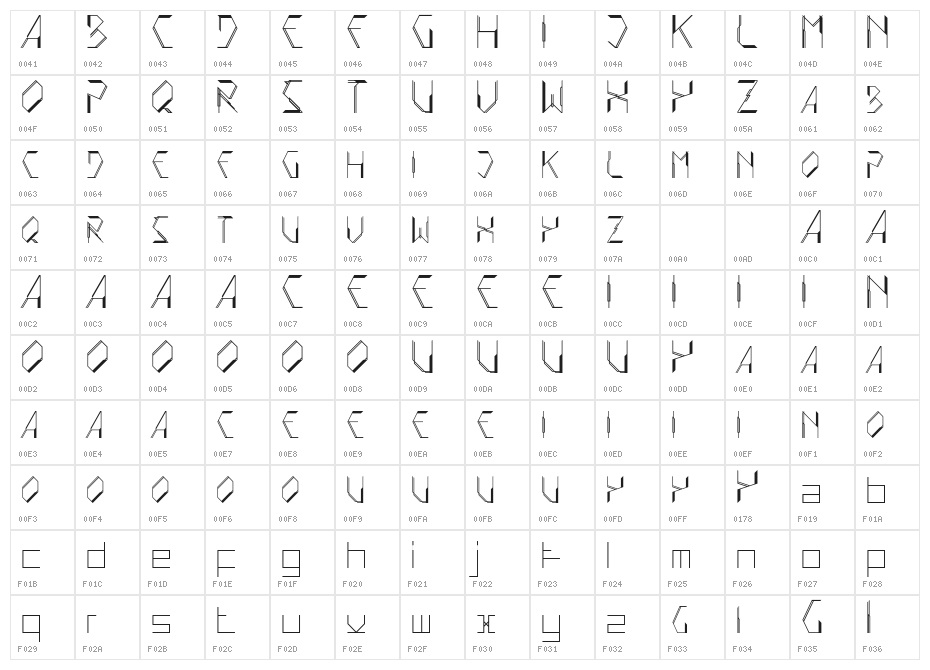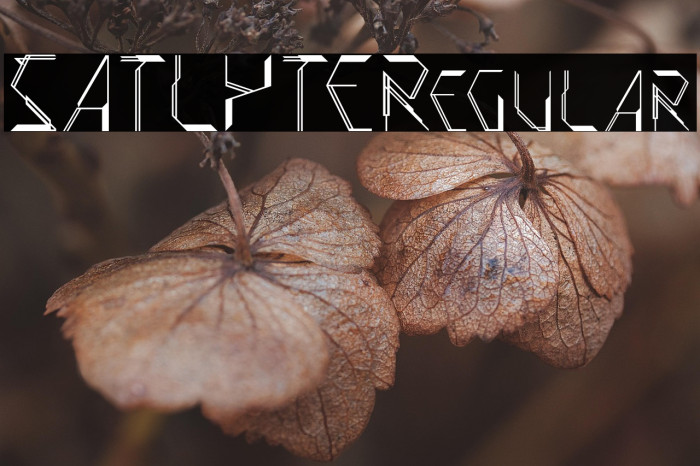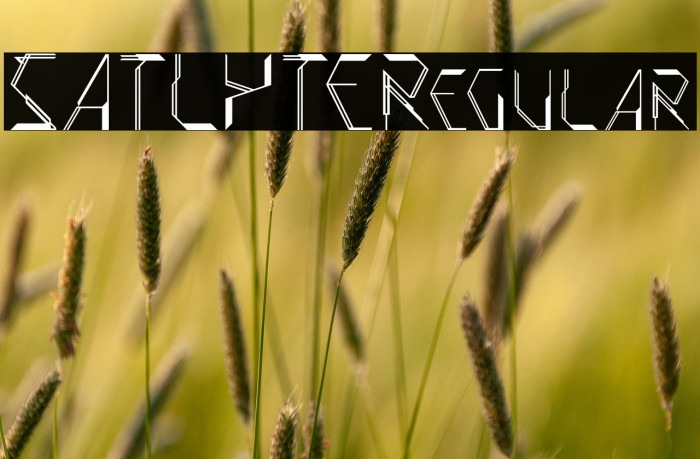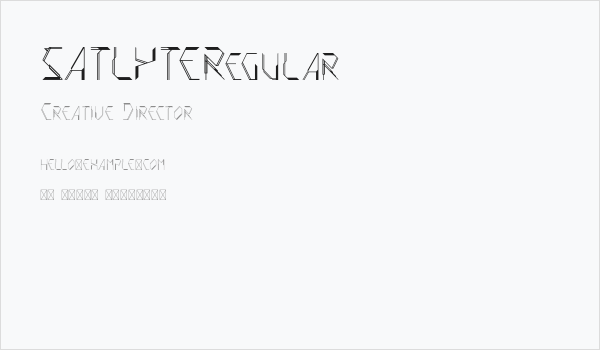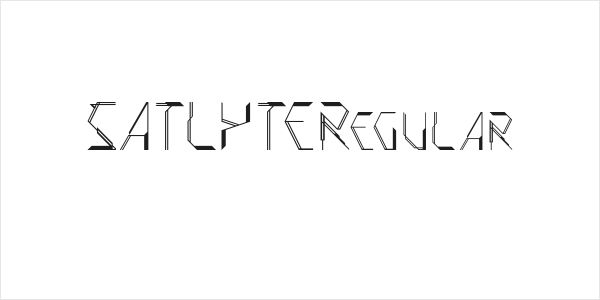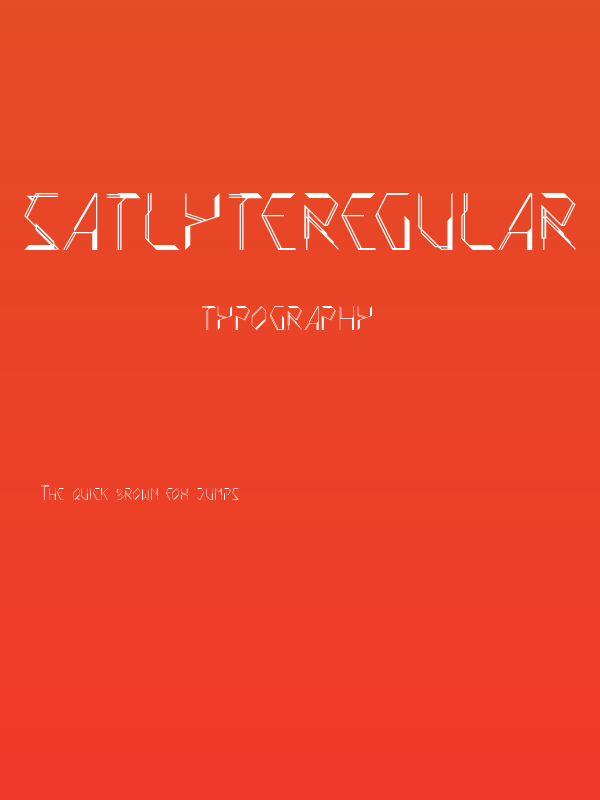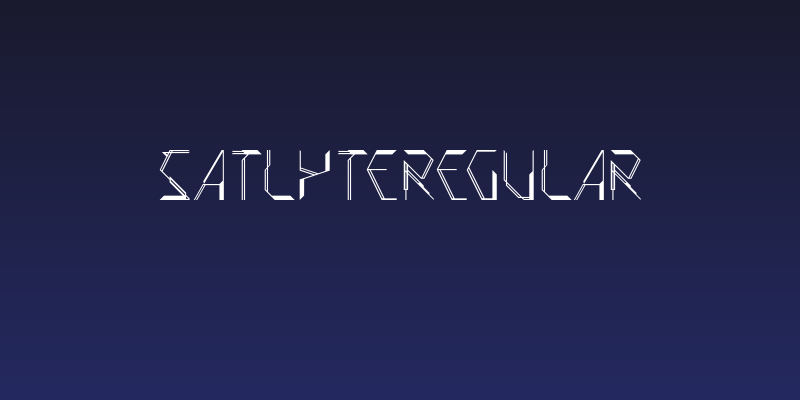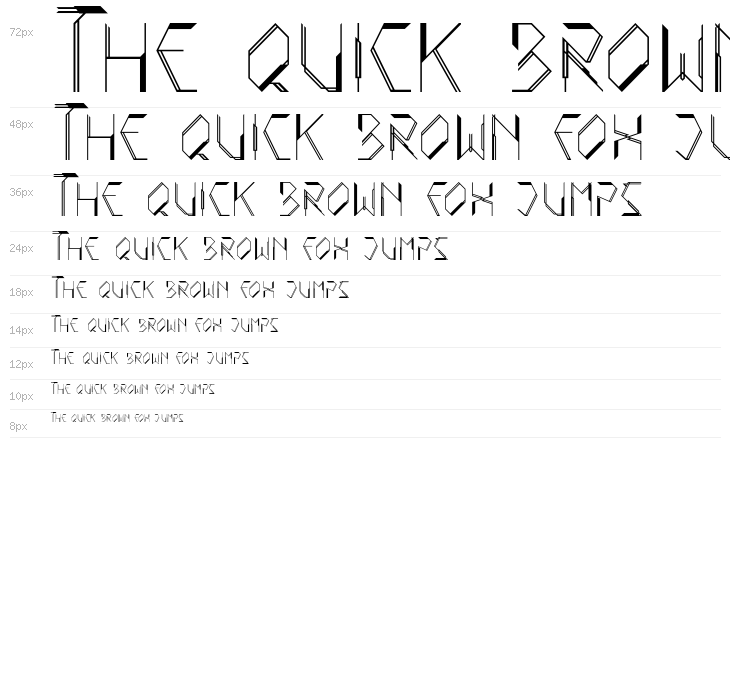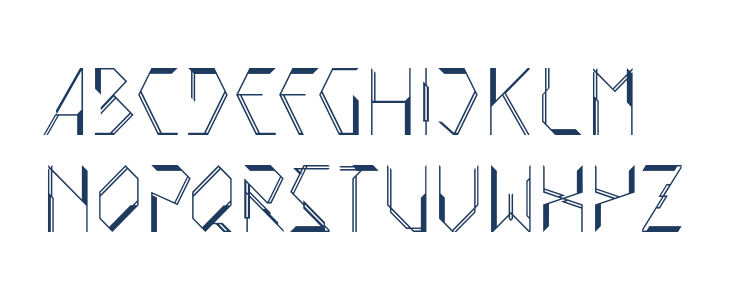
SATLYTERegular Font
SATLYTERegular Description
This font features a futuristic and geometric design, characterized by sharp angles and clean lines. The uppercase letters are distinct with a blend of straight and diagonal strokes, creating a sense of movement and modernity. The lowercase letters maintain this angular aesthetic, offering a cohesive look across the typeface. The numbers and special characters follow the same design principles, ensuring consistency. The overall appearance is bold and striking, making it suitable for projects that require a modern and edgy feel.
| Proposed Projects | Ideal for sci-fi themed designs, tech branding, modern posters, and digital media projects. |